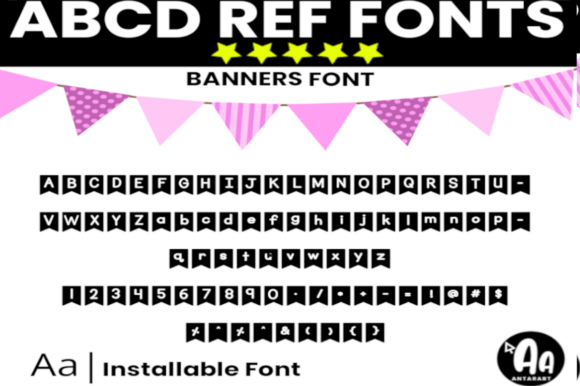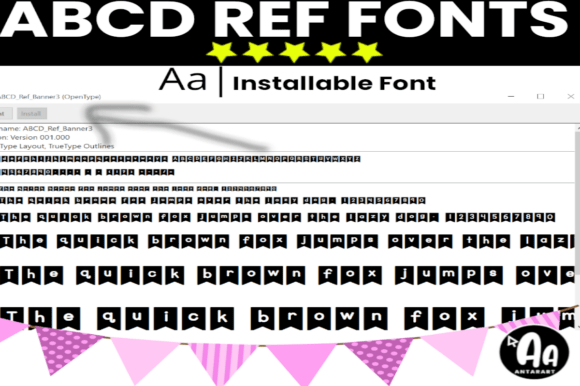
The ABCD REF Banner Font: A Playful Celebration of Color and Fun
Have you ever been in the middle of a design project, excited to create something special, only to get stuck on finding the perfect font? I recall a particularly frustrating moment when a client asked for a custom banner design with a “Welcome Back!” theme. I wanted something that would pop, something festive, but everything I tried seemed either too bland or too boring. That’s when I stumbled upon the ABCD REF Banner Font, and it instantly transformed my design into a vibrant celebration.
First Impressions: A Love at First Sight
The ABCD REF Banner Font is a playful, colorful pennant-style design that immediately captures attention. Each character sits inside a vibrant flag shape, making it perfect for banners, bulletin boards, classroom decor, birthday signage, and school projects. With bold outlines and charming letterforms, these fonts bring cheerful energy and instant visual appeal to any festive setting.
• ✨ Playful Design: The pennant-style flags add a fun and celebratory feel to any text.
• 💥 Instant Visual Appeal: The bold outlines and vibrant colors make any banner or sign stand out.
• 📚 Versatility: Suitable for a wide range of projects, from educational to personal celebrations.
While the ABCD REF Banner Font is fantastic for many uses, there are a few things to consider:
• 🤔 Legibility at Small Sizes: Due to its playful and detailed design, the font may lose legibility when used at very small sizes. It’s best used for larger displays and banners.
• ⚠️ Limited Formality: This font is highly informal and might not be suitable for projects requiring a more serious or professional tone.
Exploring Alternatives: Similar Fonts for Different Vibes
If you love the ABCD REF Banner Font but want to explore other options, consider these alternatives:
• Jolly Good: Similar playful feel but with a more rounded and softer appearance. Ideal for children’s events and informal gatherings.
• Festive Pennants: Offers a similar pennant design but with a more vintage touch. Perfect for themed parties and retro-style banners.
• Bright Banners: A bolder, more geometric take on the pennant style. Great for modern celebrations and professional events.
• Happy Herald: Combines traditional heraldry with a cheerful color palette. Suitable for formal and informal celebrations alike.
The Designer Inspiration Behind ABCD REF Banner Font
The ABCD REF Banner Font was inspired by the classic pennant designs seen at sports events and celebrations. The creator aimed to bring that festive atmosphere to digital and print designs, making it easy for anyone to add a touch of excitement to their projects. The result is a font that’s both fun and functional, perfect for a wide range of creative applications.